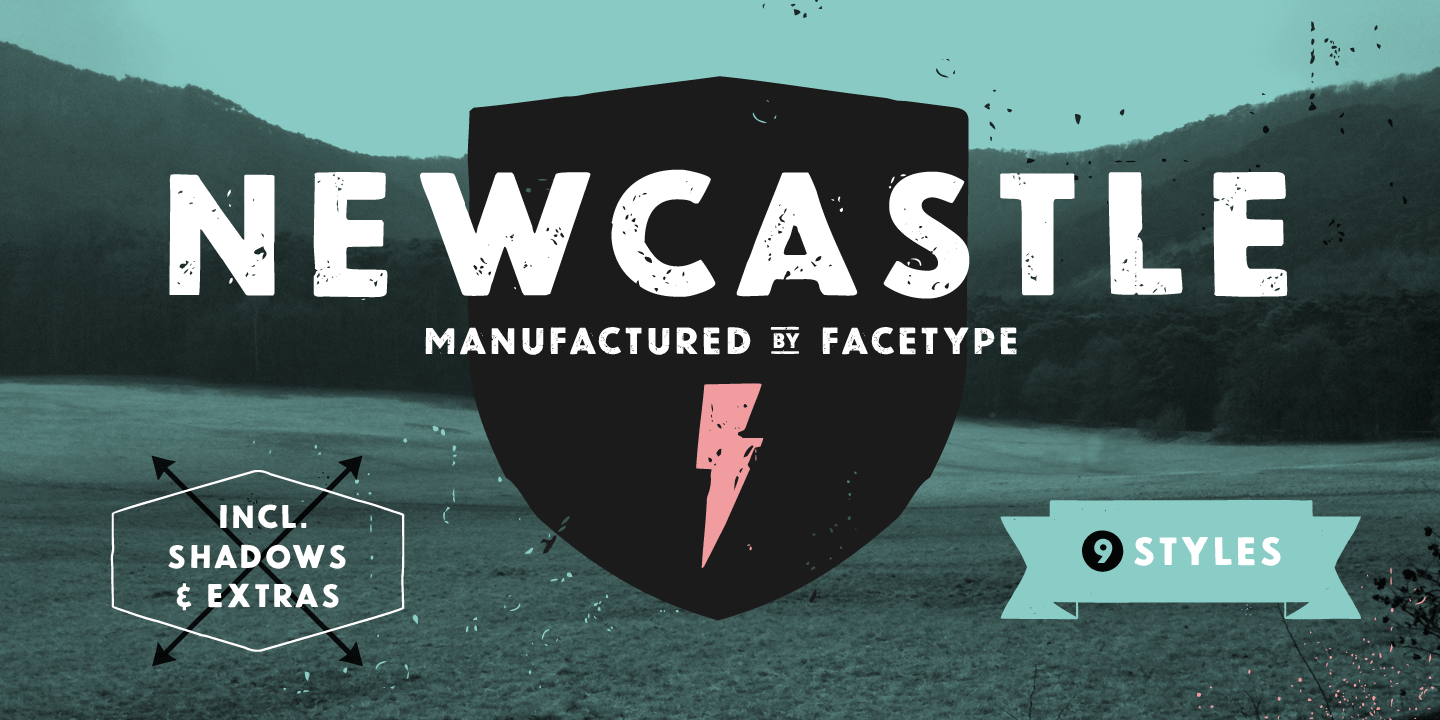
The Newcastle Font is perfect for British pub branding, English brewery logos, traditional gastropub menus, UK heritage tourism materials, British cultural event posters, English football club graphics, Victorian-themed restaurant signage, British brand identity projects, and authentic English establishment marketing.
What makes the Newcastle Font so exciting is its genuine British heritage that instantly evokes the rich traditions and cultural authenticity of England's historic industrial cities. This distinguished typeface embodies the working-class pride and industrial strength that defines Northern English character, creating an immediate impression of authenticity and cultural depth. The font's British character communicates the honest craftsmanship and traditional values that UK-focused businesses need to connect with audiences who appreciate genuine English heritage and the enduring spirit of British industrial communities.
The Newcastle Font family includes Regular weight with complete uppercase and lowercase alphabets, comprehensive numerical sets, essential punctuation marks, and British symbols that maintain the authentic English aesthetic throughout your heritage and cultural design projects.
British businesses and heritage organizations consistently choose Newcastle Font Free Download for projects that require authentic UK appeal and traditional English communication. This exceptional typeface excels in environments where establishing connection to British cultural traditions and industrial heritage is crucial for attracting audiences who value genuine English experiences and authentic British craftsmanship. The font's English character helps communicate the quality and cultural significance that British heritage enthusiasts expect from established UK institutions and traditional English establishments.
The distinctive qualities of Newcastle Font reflect the proud traditions of English industrial cities where working-class determination and community spirit built the foundations of modern Britain. Each character demonstrates the sturdy reliability and straightforward honesty that characterizes Northern English culture and traditional British craftsmanship. The font's proportions and spacing create perfect balance between industrial strength and cultural warmth that modern British businesses require for effective heritage marketing and authentic cultural communication.
Contemporary UK enterprises appreciate how Newcastle Font communicates British authenticity and industrial heritage. Whether designing materials for traditional pubs, creating branding for British craft breweries, or developing marketing for heritage tourism experiences, this font delivers the genuine character that distinguishes authentic British establishments from generic imitations. The typeface works exceptionally well for businesses emphasizing traditional methods, British heritage, and the enduring values of English craftsmanship and community spirit.
The versatility of Newcastle Font extends across multiple British applications and heritage marketing initiatives. Football clubs utilize its authentic English character for supporter materials and team identity projects. British restaurants choose it to communicate their commitment to traditional recipes and authentic English dining experiences. Heritage sites rely on its cultural appearance to promote historical attractions and educational programs about British industrial history.
Digital British platforms benefit from Newcastle Font's optimized performance across various UK-focused applications and British cultural communication channels. The font maintains its English character whether displayed on heritage websites, mobile British tourism apps, or digital cultural exhibitions. This technical reliability ensures consistent brand presentation across all British heritage communication platforms and UK cultural engagement scenarios.
The emotional appeal of Newcastle Font resonates with audiences who appreciate the rich history and cultural depth of British industrial heritage. The typeface serves as a visual connection to authentic English traditions and working-class values that helps British businesses build lasting relationships with customers who seek genuine UK experiences and traditional British quality. This connection to cultural authenticity and industrial pride makes it invaluable for establishing credible British brand identities.
British marketing specialists and heritage design professionals recognize Newcastle Font as an essential tool for authentic UK branding. The font captures the essence of English industrial heritage while making British tradition accessible to contemporary businesses who want to communicate their deep connection to UK culture and authentic English values in today's global marketplace.